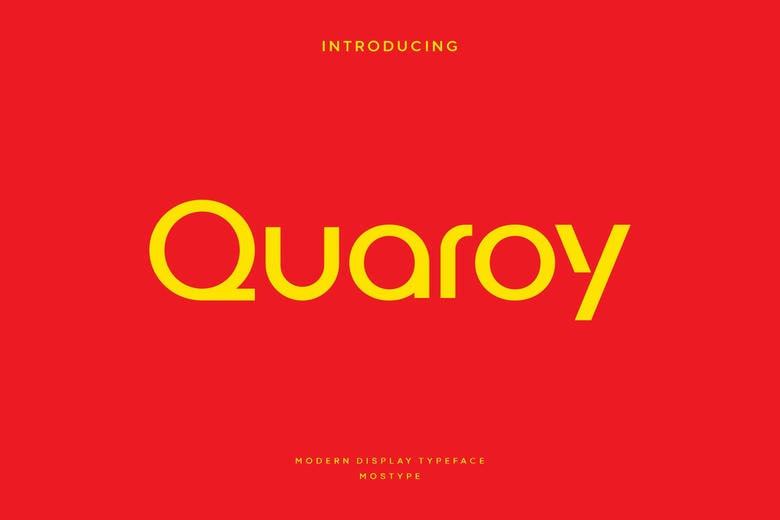
Quaroy Font
Quaroy is a modern sans-serif typeface crafted for professional branding and corporate design. Featuring a full range of weights from Thin to Bold, it combines clean lines with versatile functionality, making it ideal for logos, visual identities, and sophisticated branding needs.
Quaroy Sans Serif Font